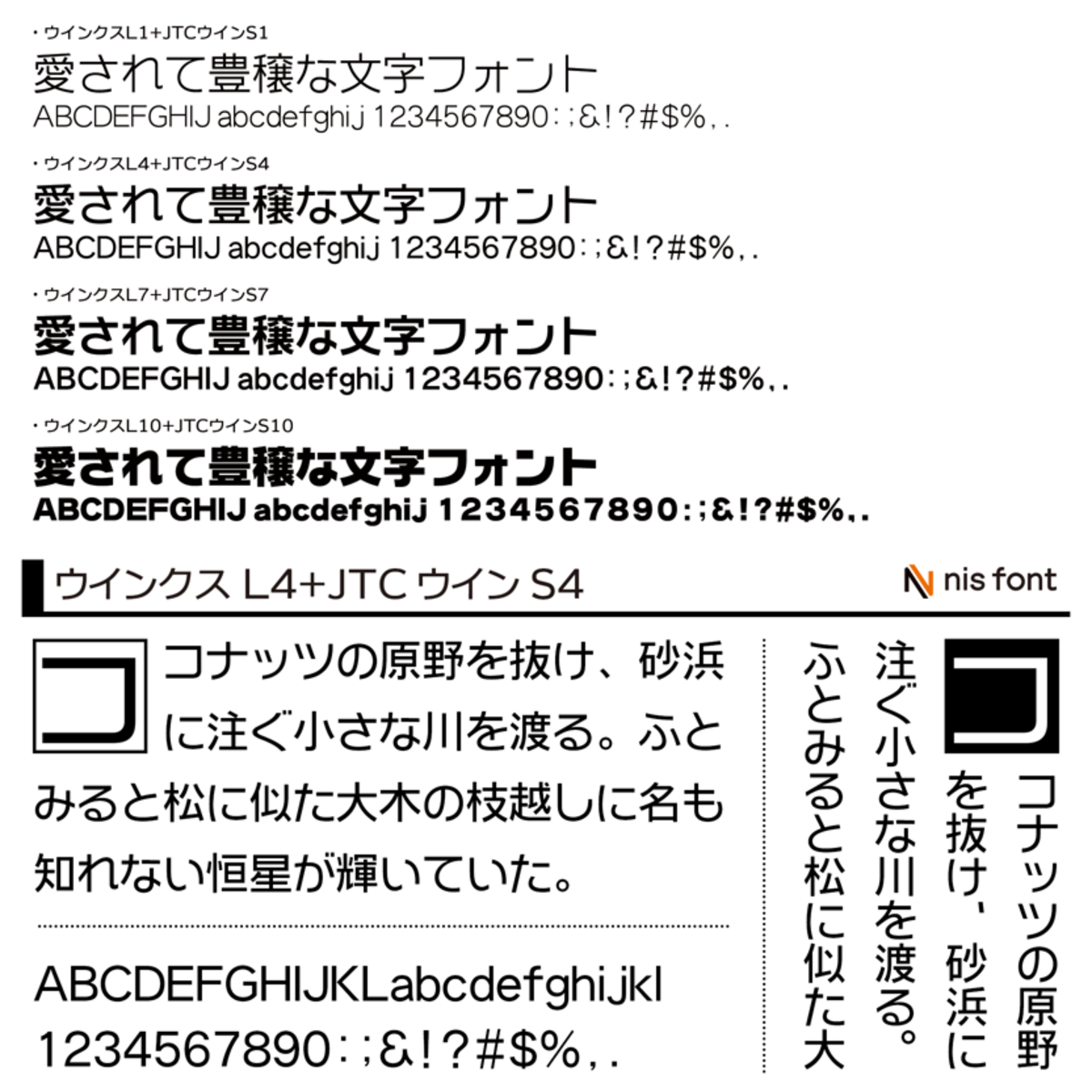
OT-NIS_WKL: Playful Energy, Serious Impact – Crafting Iconic Logos & Engaging Interfaces
Hey there, fellow creators and pixel whisperers! OT-NIS_WKL here, and before you pigeonhole me as "just another font," let me introduce myself properly. Think of me as that charmingly mischievous friend who effortlessly brightens any room – or, in your case, any digital interface. I'm not just a collection of curves and lines; I'm a personality, an entire mood, ready to infuse your designs with a shot of pure, unadulterated playful energy.
You know how it is. In a world saturated with sleek, often sterile, digital experiences, users crave connection, a little spark of joy. That's where I skip in. I thrive on bringing that human touch, that delightful bounce, to your projects. I'm built for the modern UX/UI designer who understands that a great user experience isn't just about functionality; it's about feeling. Imagine those moments when a user smiles at an error message, or feels a genuine warmth during an onboarding process – that's the magic I bring.
What makes me special as an excellent UX/UI font? Well, I like to think I've mastered the art of playful sophistication. My letters dance with a subtle bounce, my terminals have a friendly wave, and my overall presence radiates approachability without ever sacrificing readability. I solve that common design challenge: "How do I make this fun and engaging without looking unprofessional or childish?" I bridge that gap, helping you differentiate brands, build trust with a smile, and create memorable interactive experiences. I'm not here to shout; I'm here to charm.
OT-NIS_WKL: Where Play Meets Professional.
So, where do I truly shine? Picture me bringing life to an interactive dashboard for a wellness app, making data feel less daunting and more delightful. I'm the perfect voice for a quirky brand's logo, giving it an instant, memorable identity that oozes personality and approachability – think artisanal coffee shops, vibrant tech startups, or children's learning platforms looking for a distinctive visual identity. I absolutely adore being part of engaging onboarding sequences, making those crucial first steps feel like a friendly greeting. Use me for those unexpected micro-interactions, delightful success messages, or even the subtle headlines in a gamified learning platform. I’m also fantastic for adding character to social media graphics or giving a unique flair to creative agency portfolios. If you're designing for a brand that wants to be seen as innovative, friendly, and genuinely human, I'm your go-to for effective digital interface design and brand building.